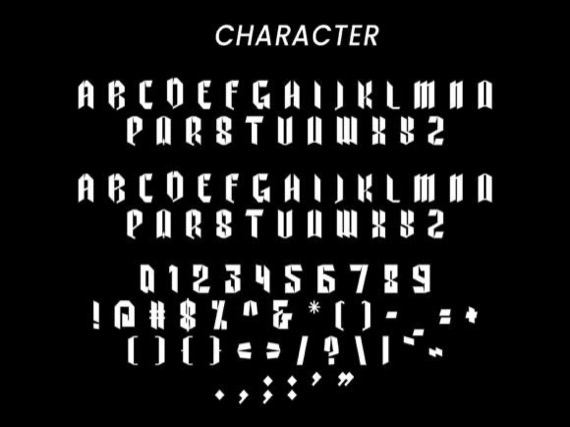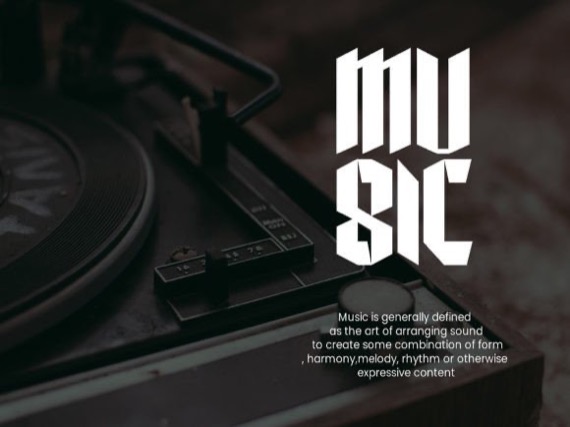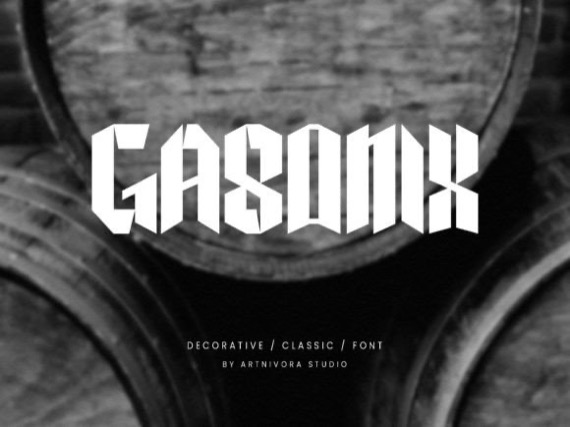
Introducing a flexible and cool typeface from Artnivora.Std, Gasonix is a cool and incredibly unique display font. Its original look will help you create fantastic designs that will definitely stand out from the crowd.
Gasonix Decorative Display Font
Designer, Publisher: Artnivora.Std